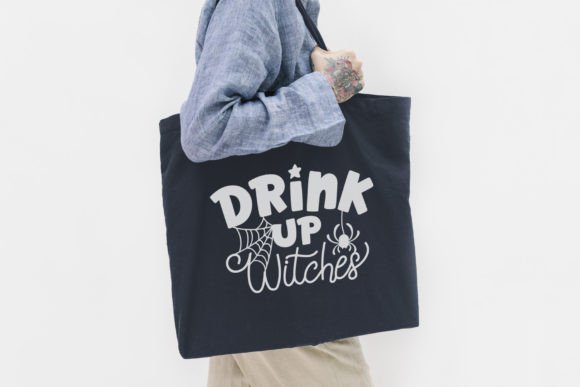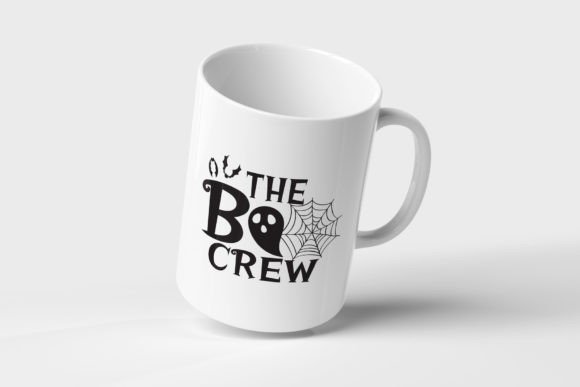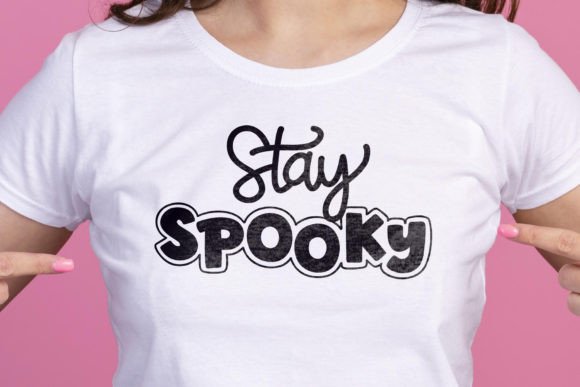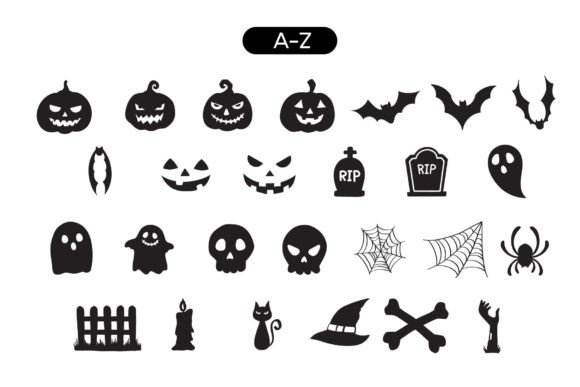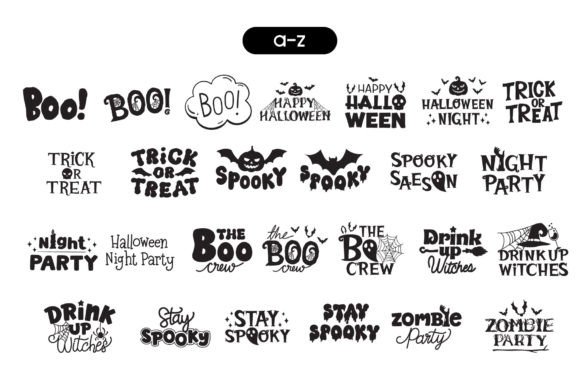
Introduction to Object Halloween Font
Object Halloween is a playful dingbats font that infuses spooky vibes into your designs.
Packed with a delightful assortment of Halloween-themed symbols and icons, it unleashes the creative spirit for holiday projects Whether crafting invitations, party dรฉcor, or social media posts, this fun font allows you to embrace the magic of Halloween with its quirky and eerie elements.
Key Features of Object Halloween Font
Why Choose Object Halloween Font?